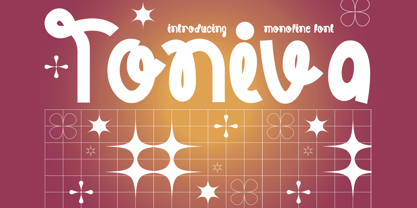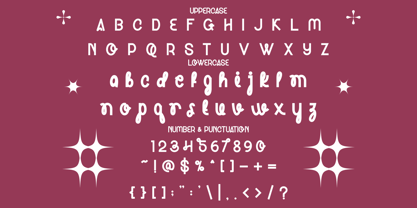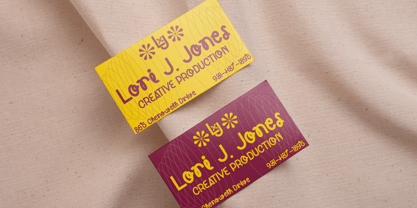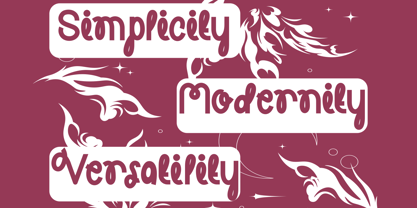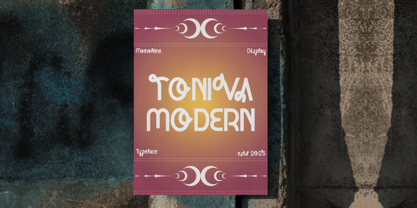
Toniva
by Shanaf
The Toniva Font Family was designed by Yesie Erma Yunita and published by Shanaf. Toniva contains 2 styles and family package options. More about this family
Toniva Monoline Font is a unique blend of modern aesthetics and nostalgic flair, crafted to bring sophistication and style to every design. Each character features smooth, consistent line thickness that highlights its monoline structure. The letters are wide and bold, with playful geometric forms and soft rounded edges that create a striking balance between fun and professionalism. Toniva Monoline Font combines sharp design precision with artistic personality, making it stand out among modern display fonts. Its bold rhythm and stylish curves make it perfect for designers who want to elevate their projects with a fresh, confident tone. This typeface is ideal for logo design, product branding, posters, packaging, book covers, and editorial layouts. Its versatility works well across digital and print media, giving each word a stylish yet approachable personality. Toniva Monoline Font shines in creative projects that seek a retro-modern feel—perfect for lifestyle brands, art studios, or any design that values uniqueness and flair. With its refined curves and expressive shapes, this font adds modern charm and timeless appeal to any visual identity.
Designers: Yesie Erma Yunita
Foundry: Shanaf